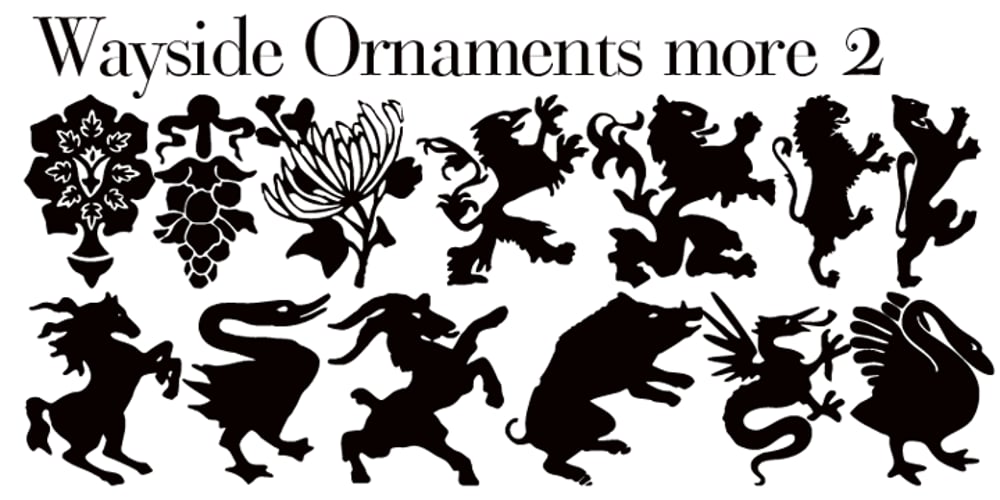
Wayside Ornaments Font Family was designed by Gert Wiescher and published by Wiescher Design. Wayside Ornaments contains 2 styles and family package options. Wayside-Ornaments« are another “trouvaille”. Great looking ornaments, lions, butterflies and other animals. Two for the price of one by Gert Wiescher